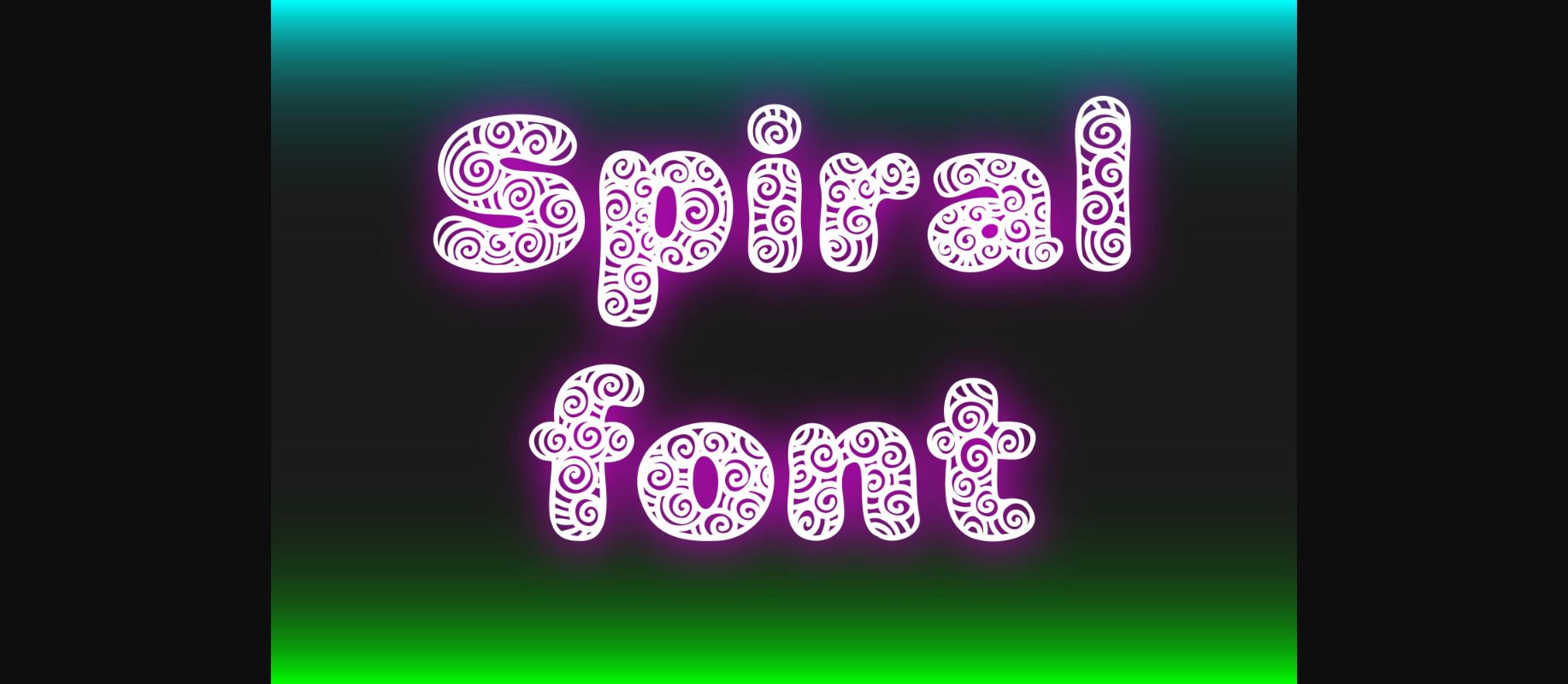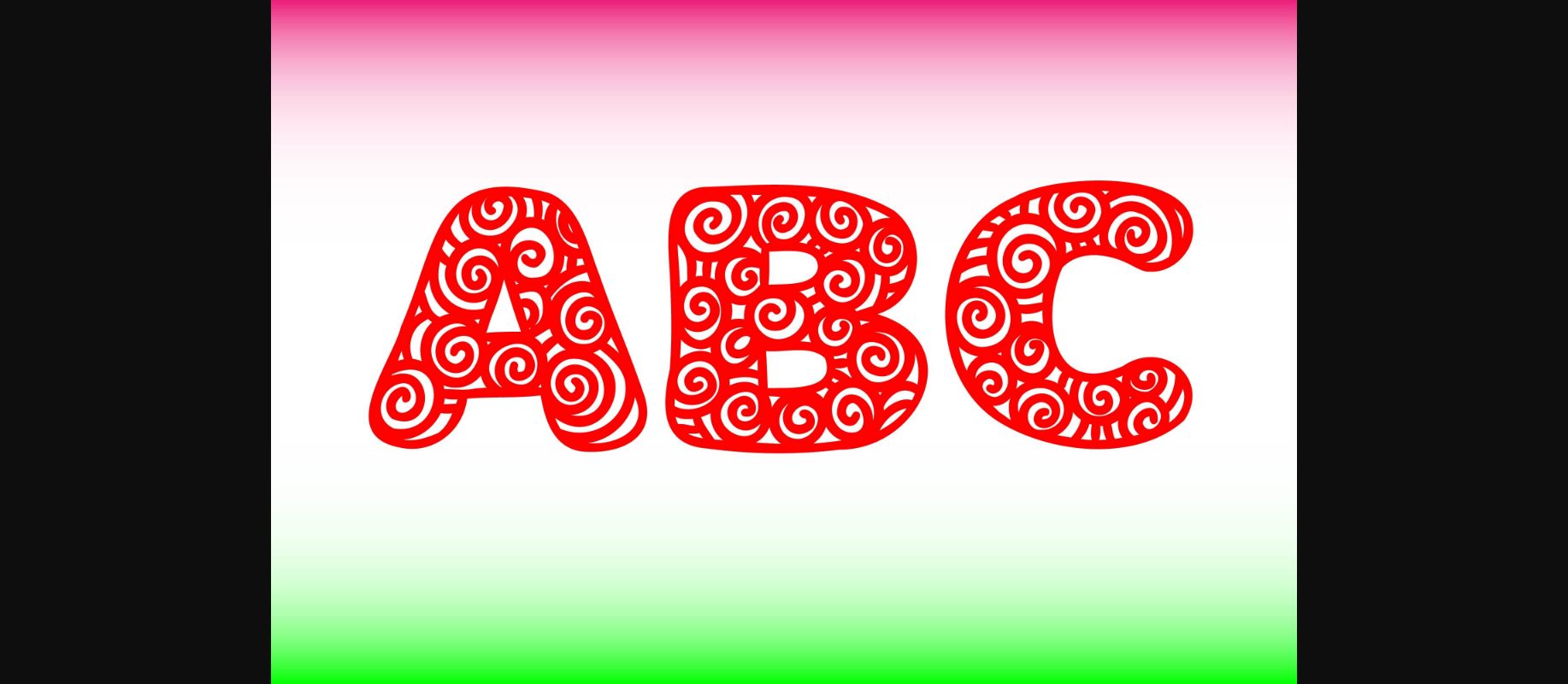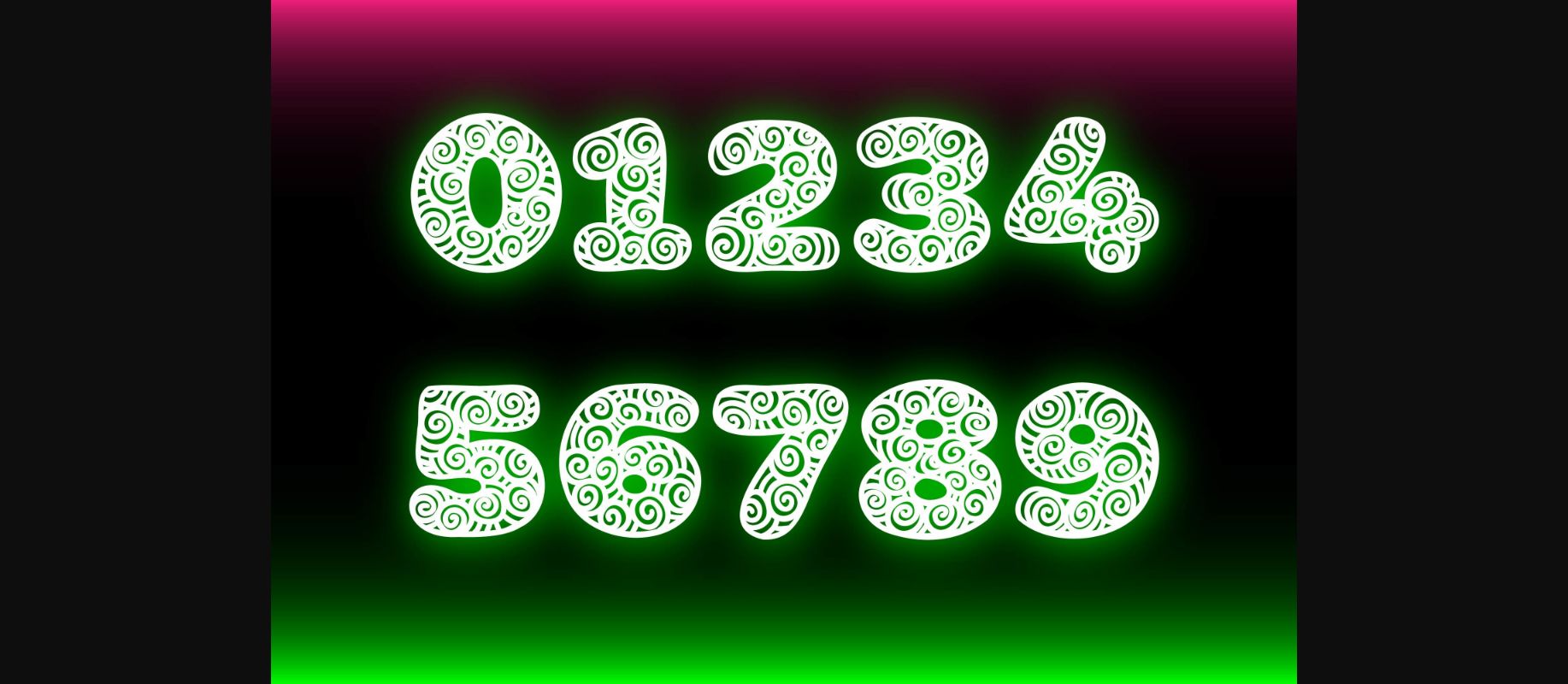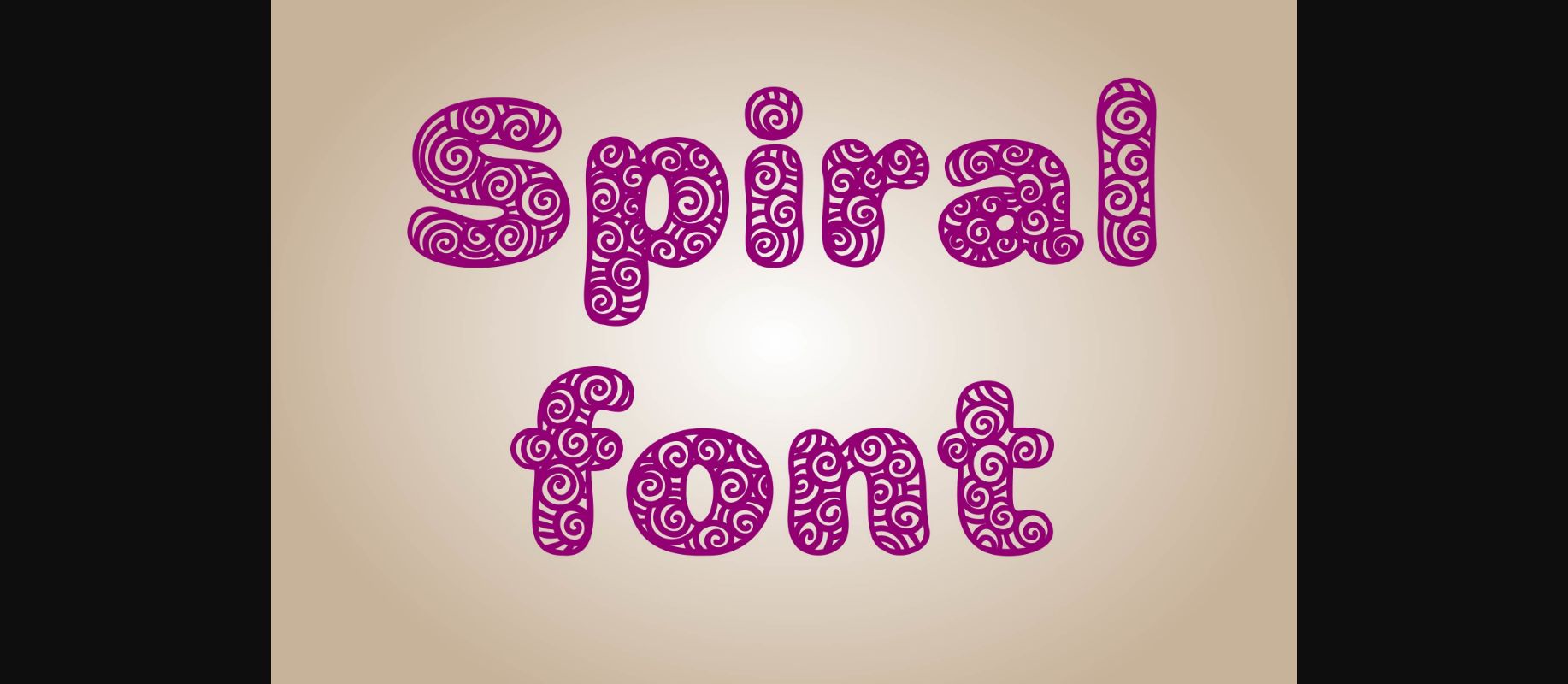
Spiral Font
About Spiral Font
Spiral is an incredibly cool and unique decorative font. This modern and bold vibe can easily apply to your favorite designs.